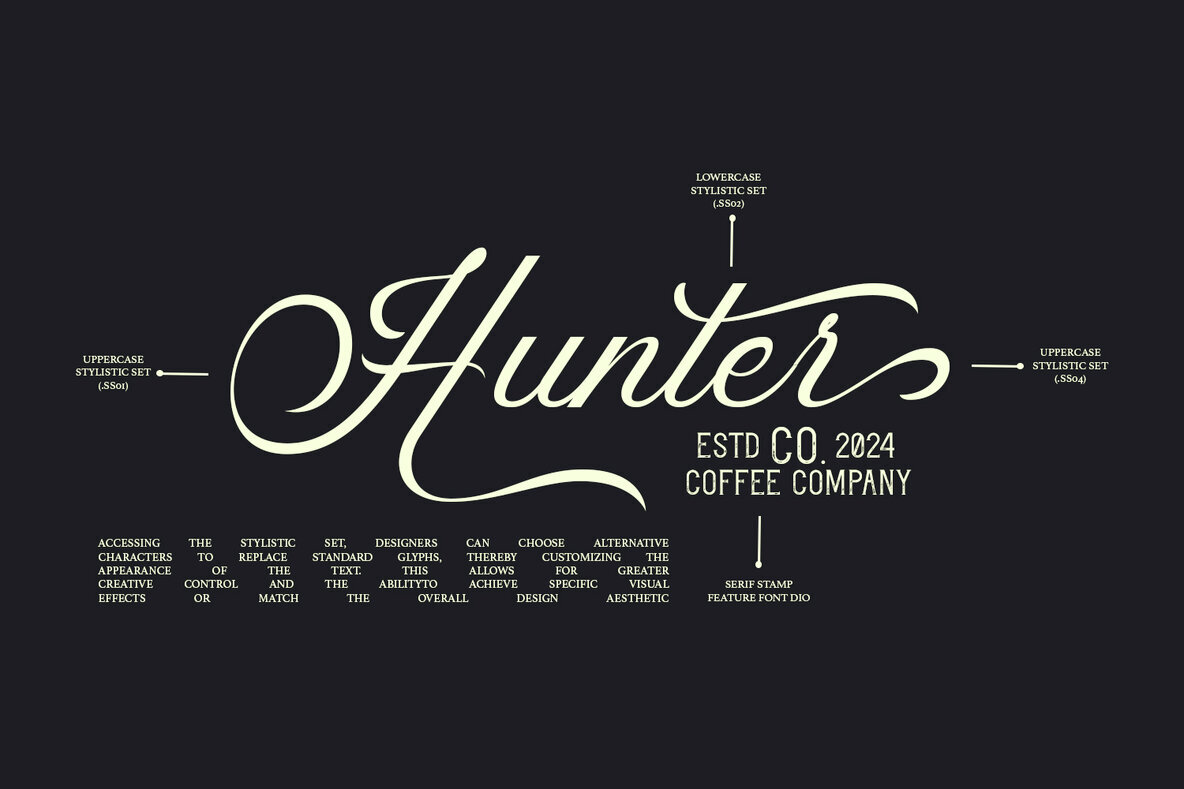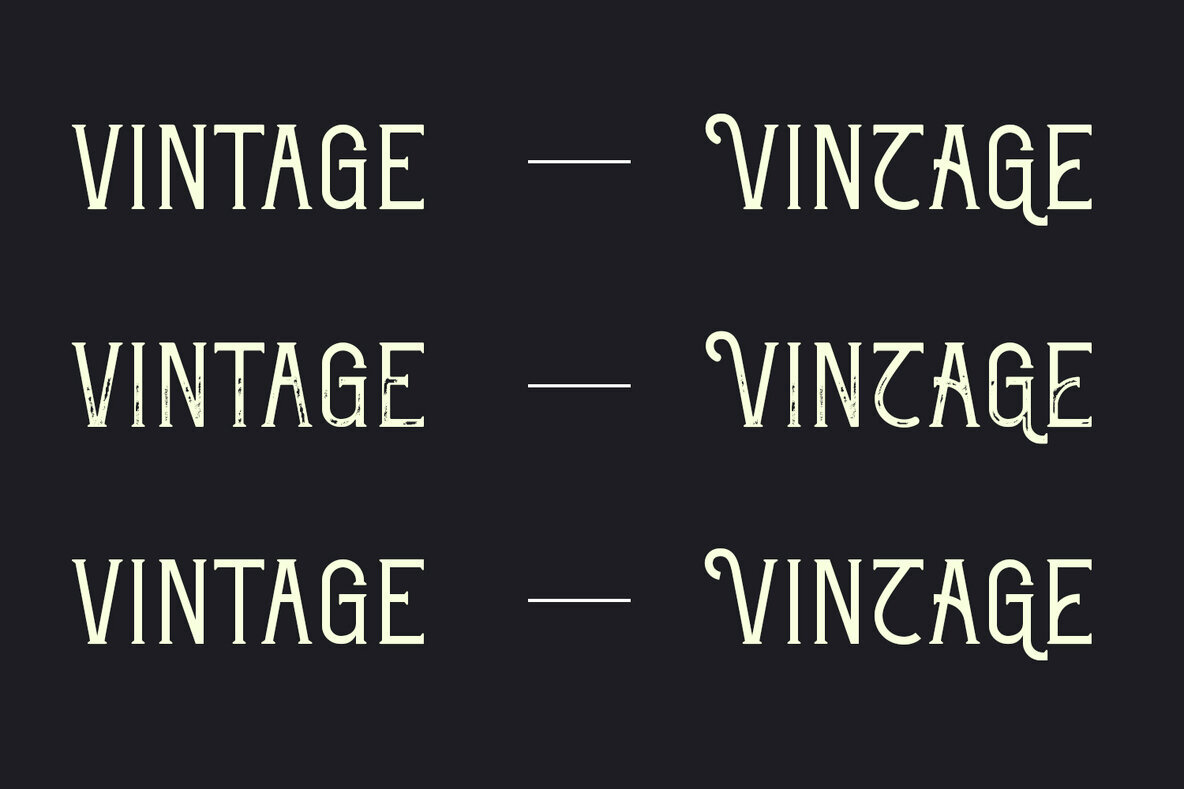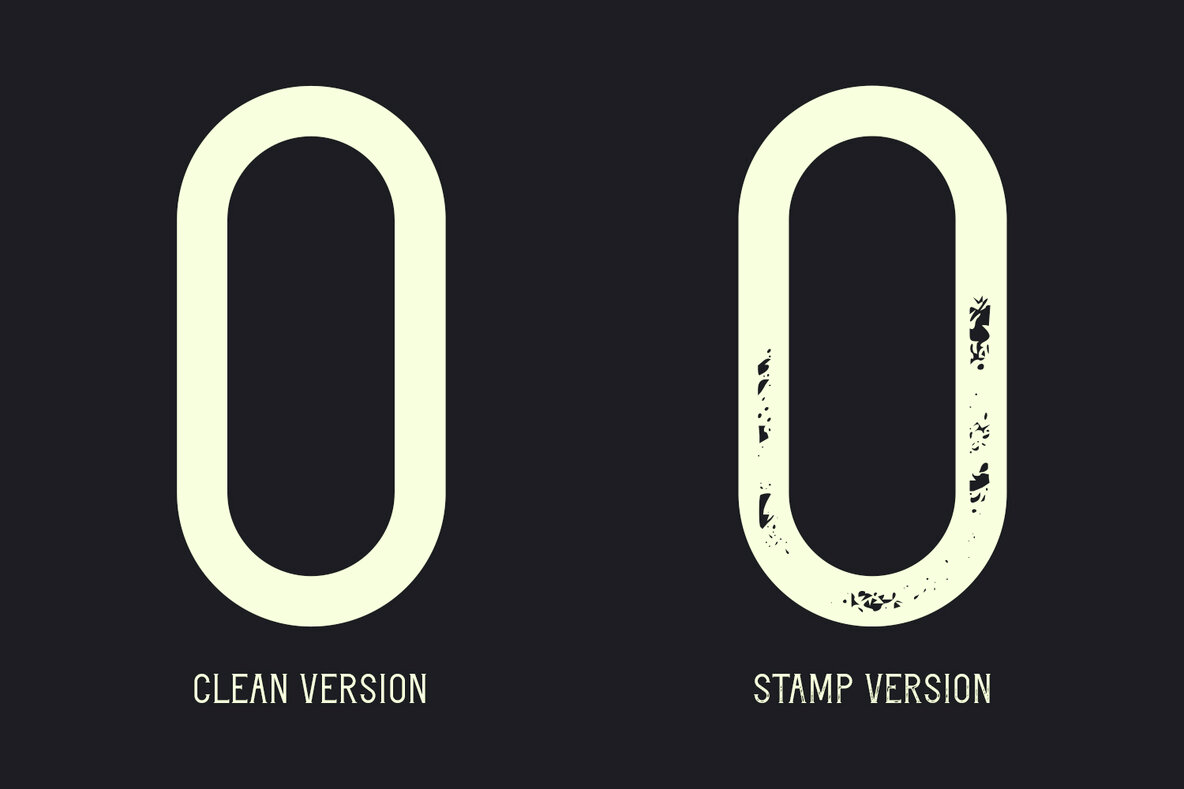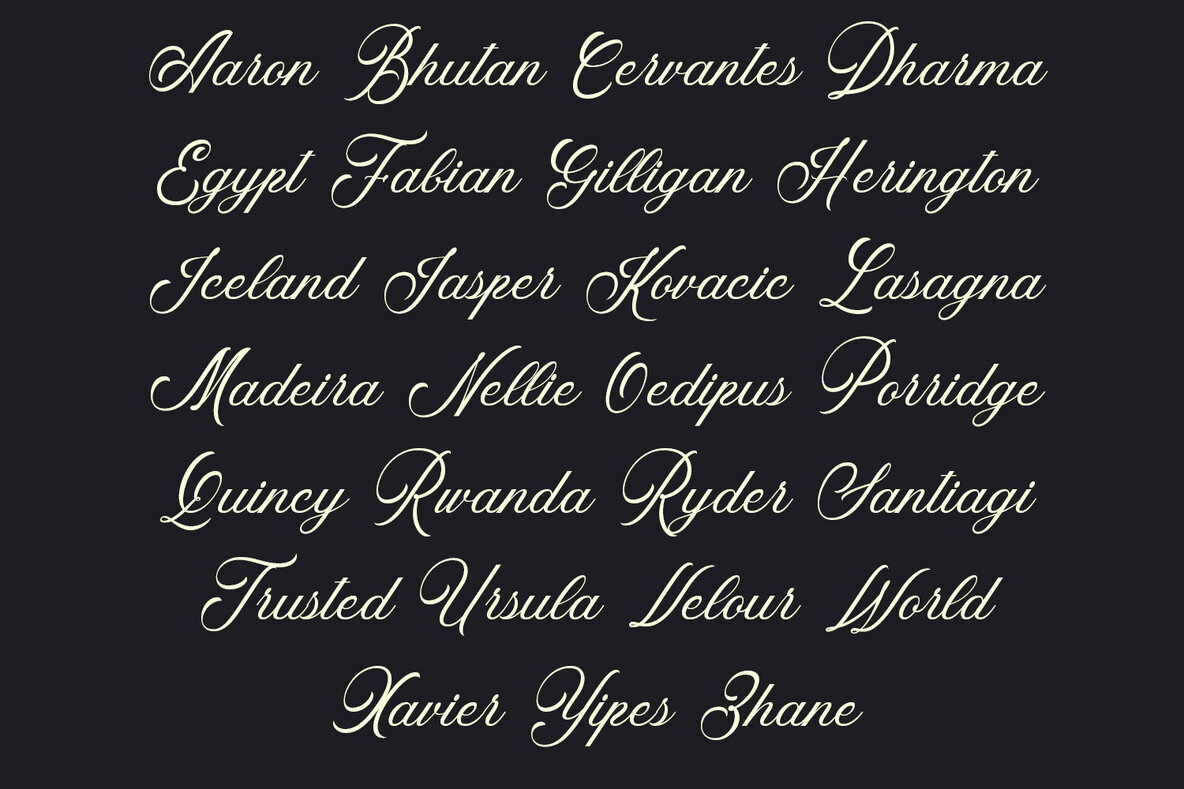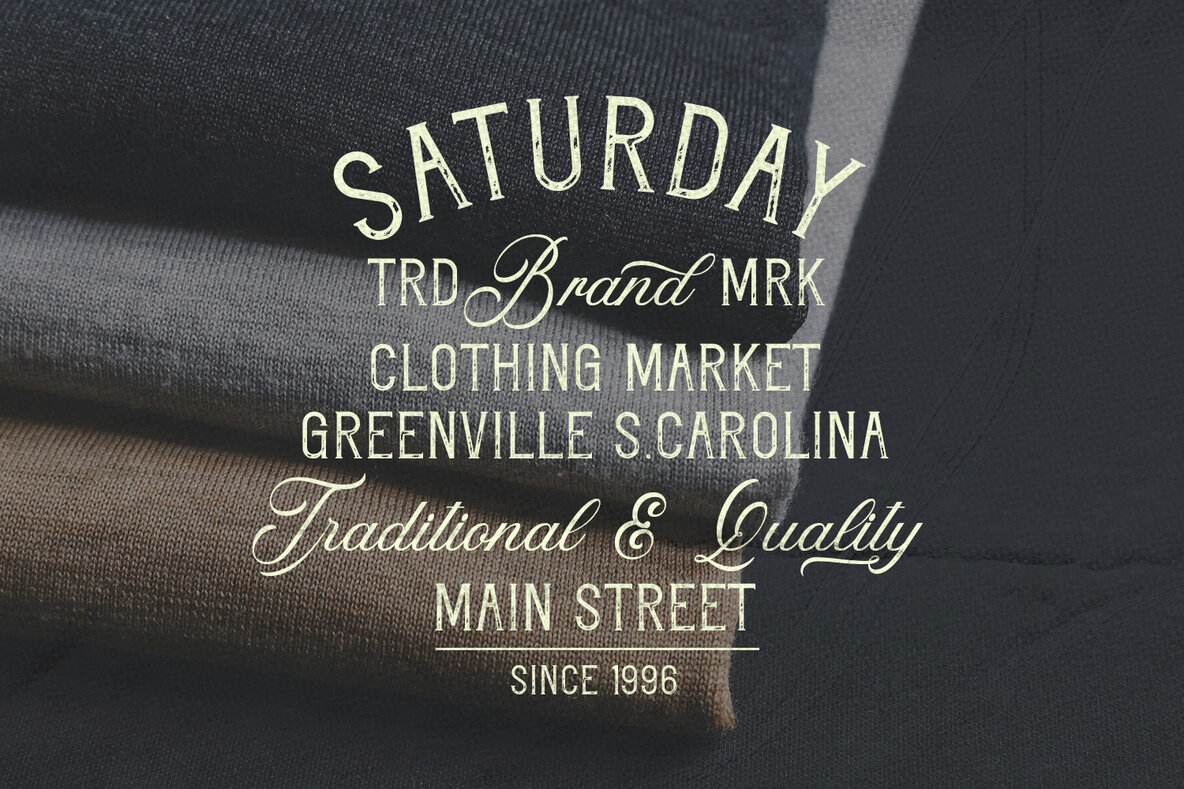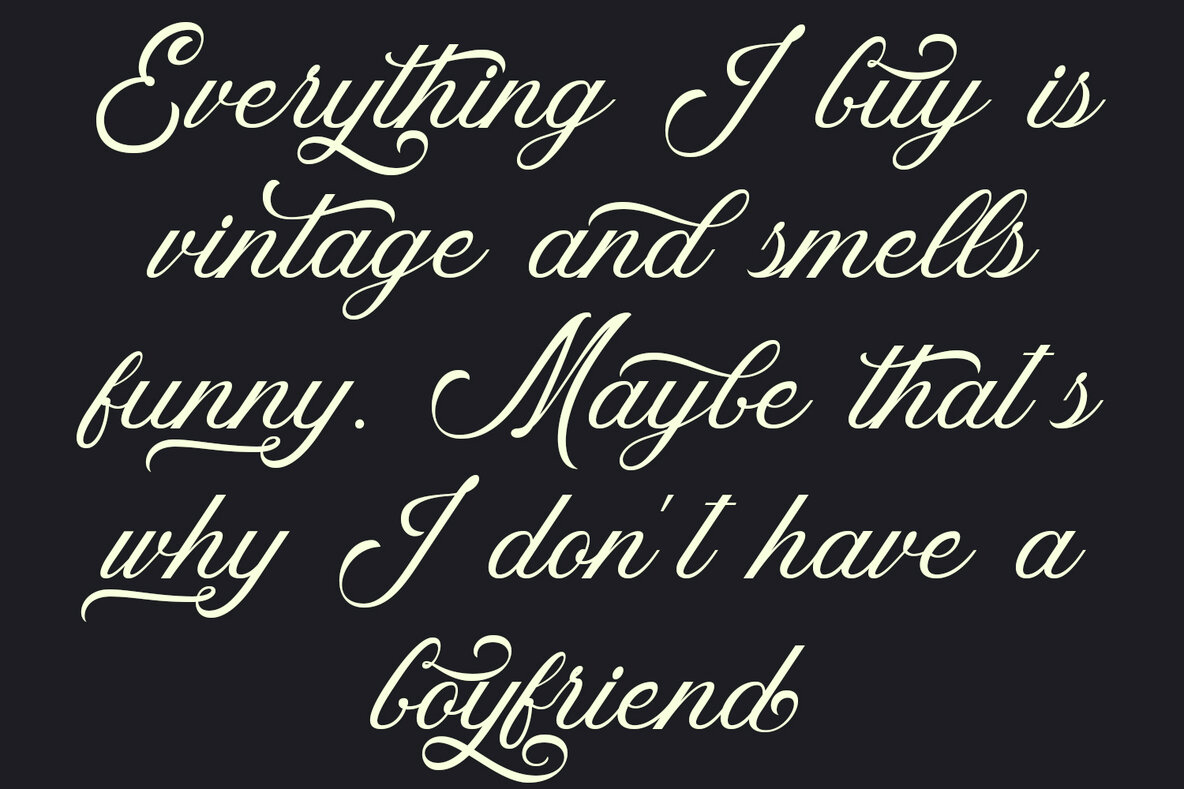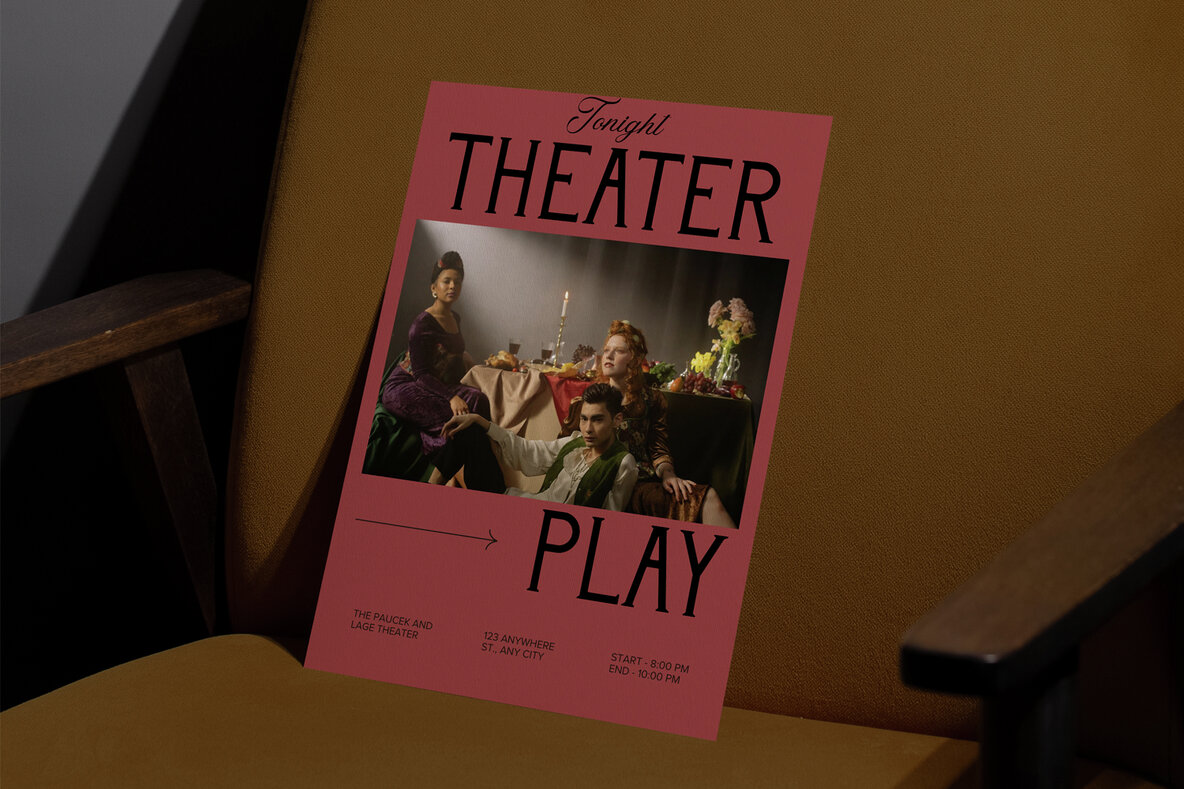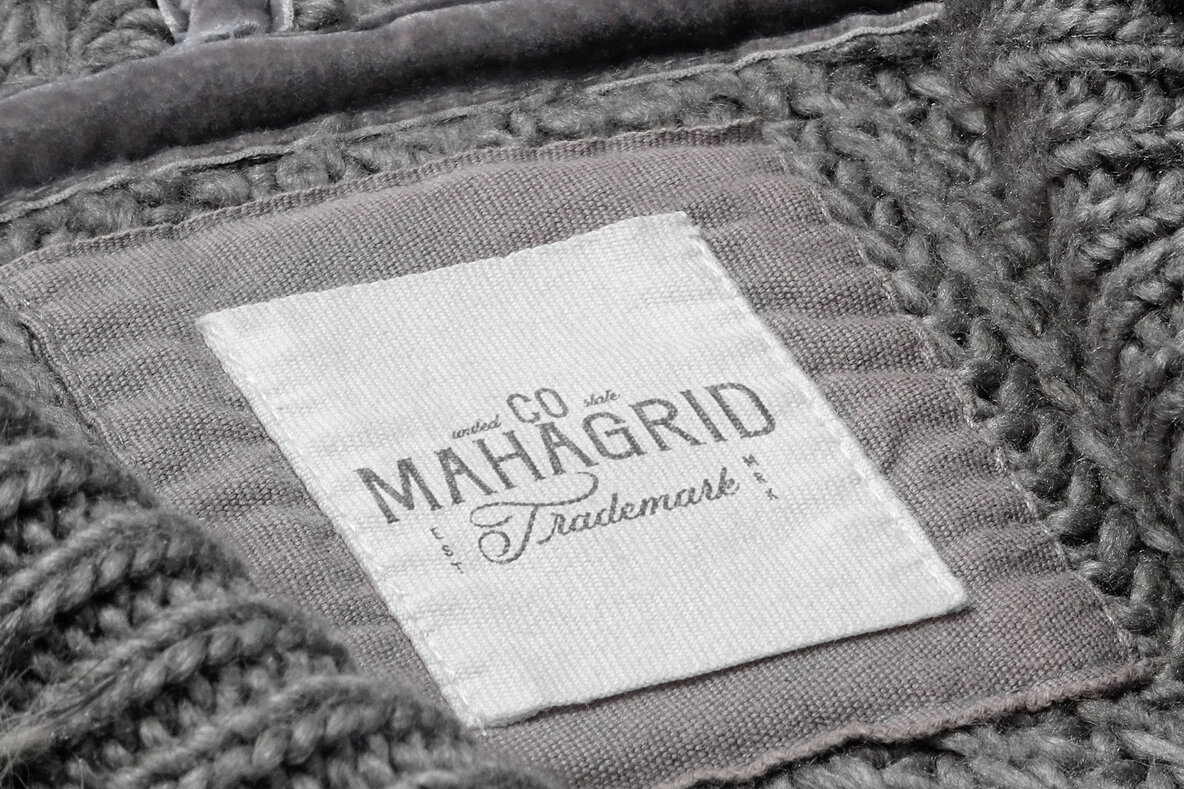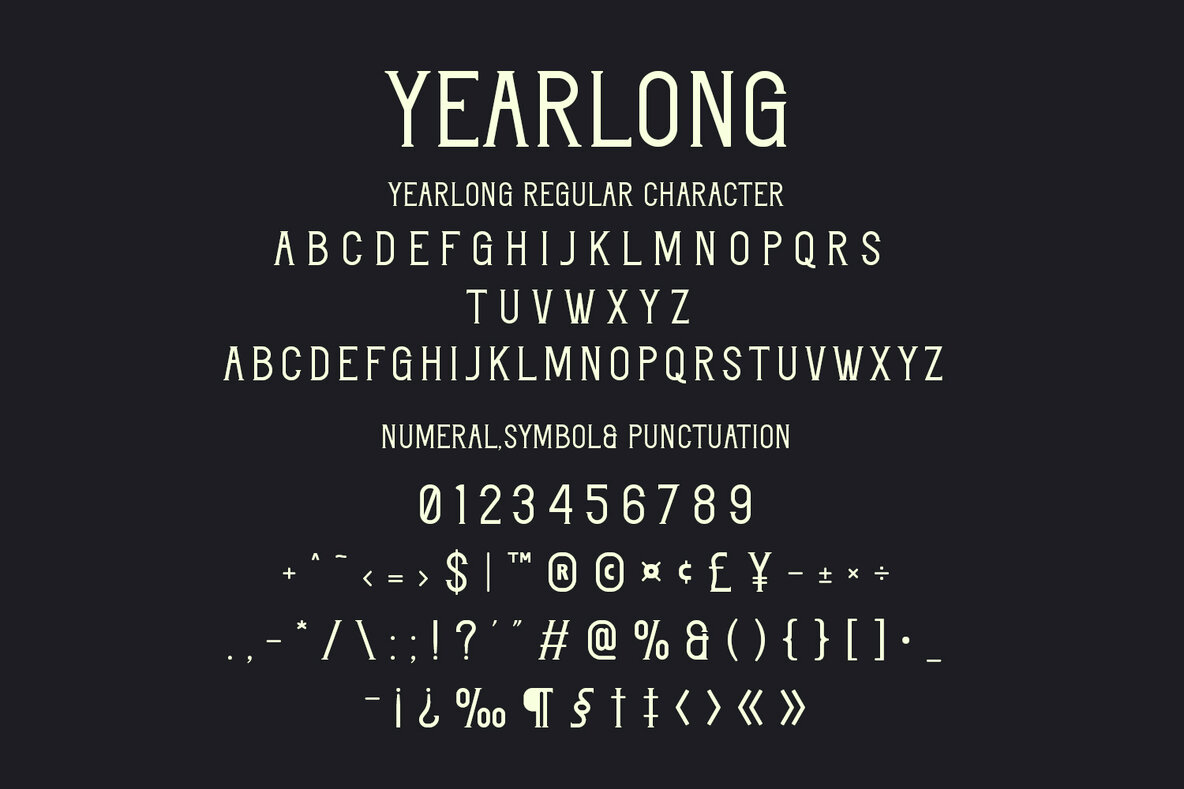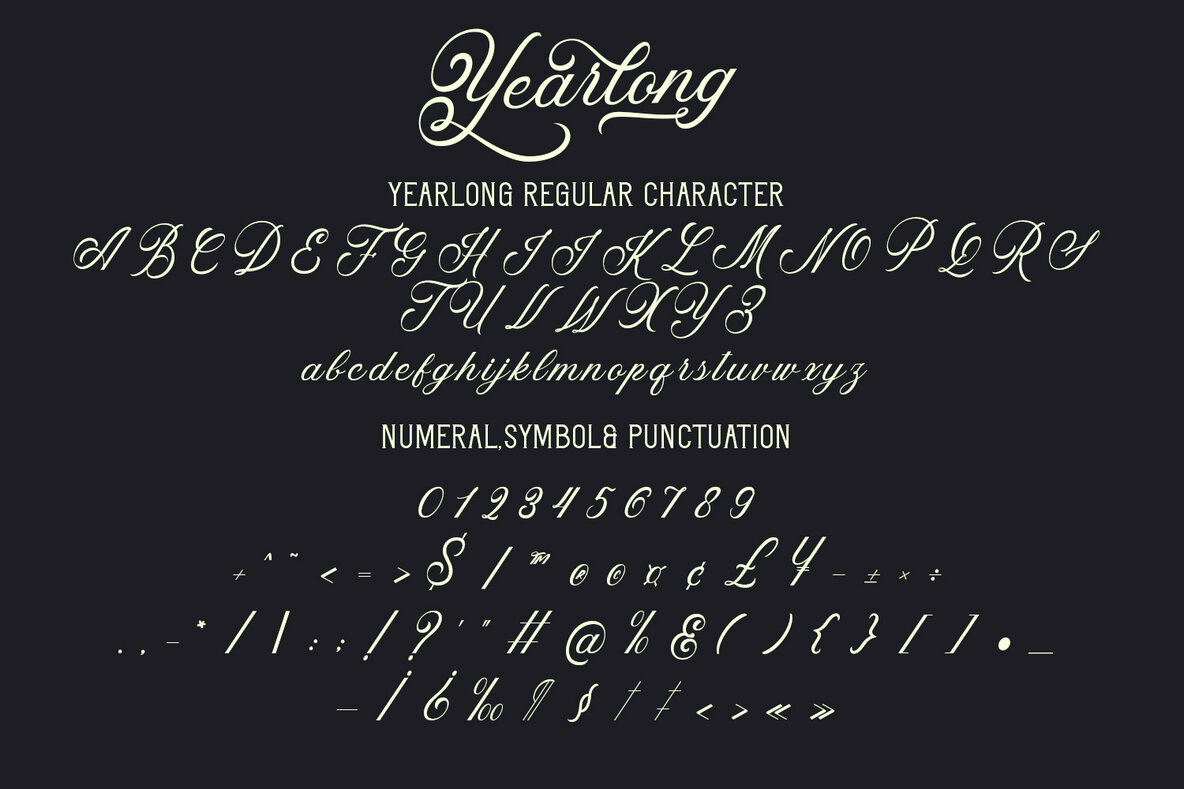
Yearlong Font
Yearlong Regular
Yearlong Serif
Yearlong Serif Rounded
Yearlong Serif Stamp
"Yearlong" is a vintage font duo featuring a complementary pair of script and serif typefaces, perfect for diverse design projects such as branding, packaging, invitations, and signage. This duo offers a nostalgic yet timeless aesthetic, ideal for creating a sophisticated and elegant look. The script font showcases elegant, flowing letterforms that imitate classic hand-lettering, designed with smooth connections for a cohesive appearance. Additionally, it includes stylistic alternates and swashes, allowing for enhanced visual interest and customization.
The serif typeface of "Yearlong" features sturdy, classic letterforms inspired by vintage typefaces, providing a sense of reliability and tradition. This font includes elegant details like serifs and subtle curves, enhancing its readability and vintage charm. The serif is versatile enough for body text, headlines, and captions, making it the perfect companion to the script. Together, these typefaces form a harmonious pairing, with multiple available weights adding flexibility and enabling various visual hierarchies. Whether for branding, packaging, stationery, or creative compositions, "Yearlong" offers designers a unique blend of elegance and timelessness.